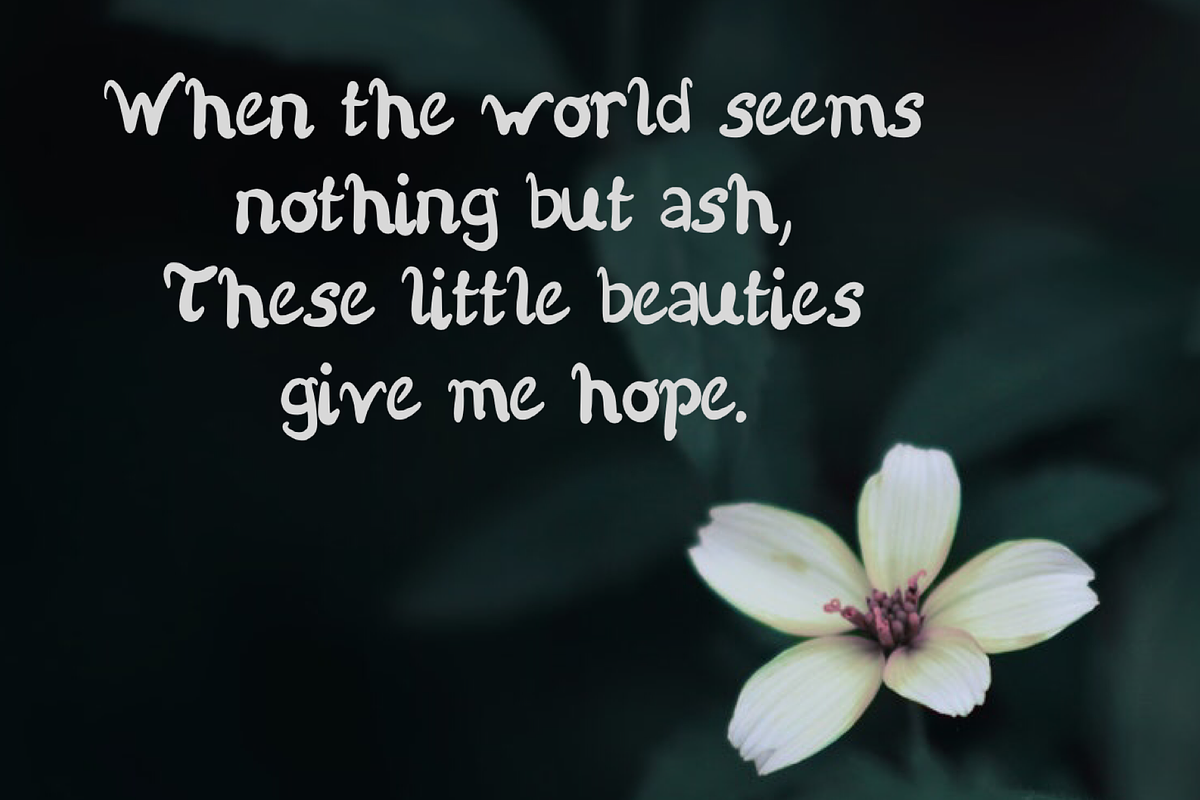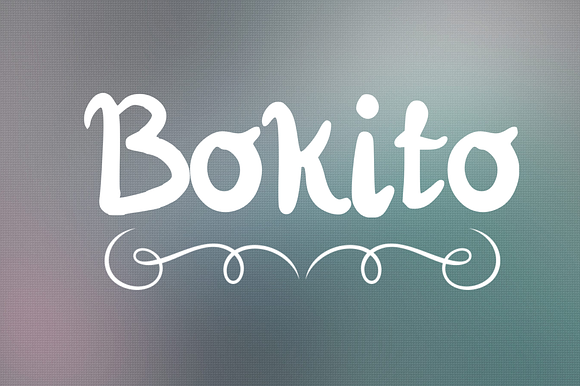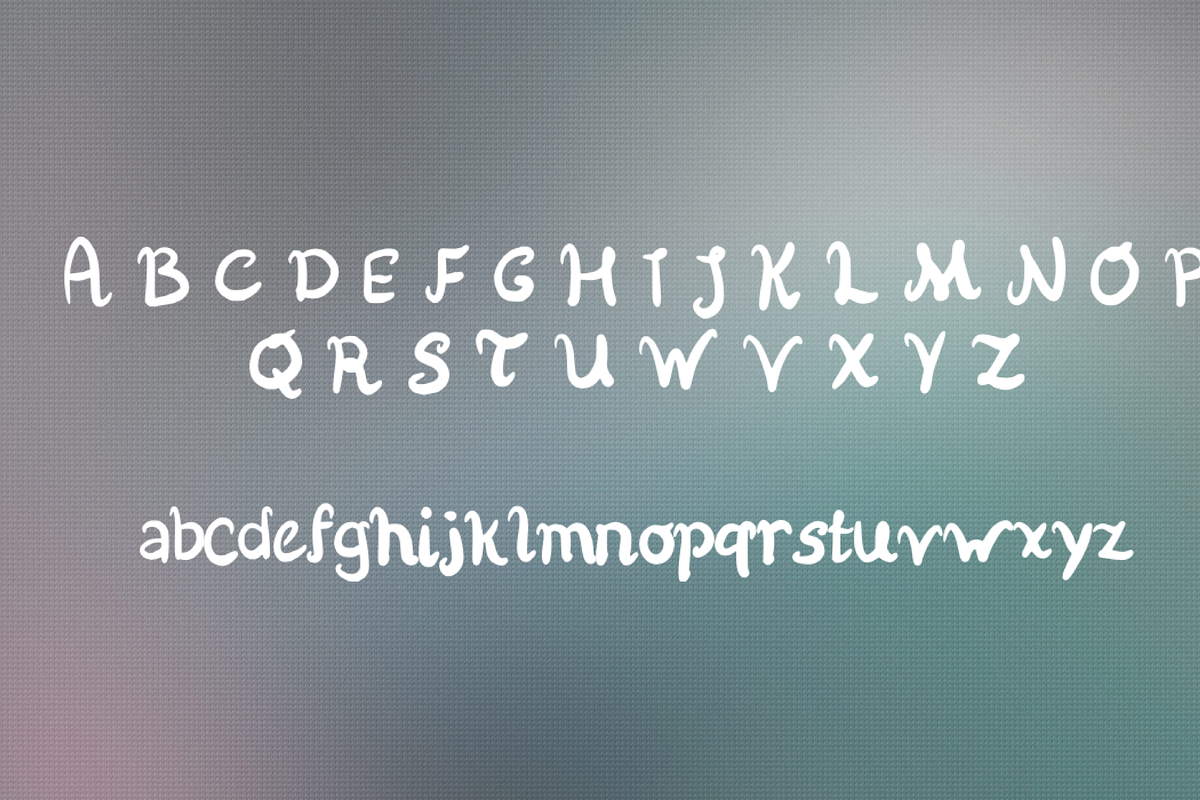
Bokito Handwritten Script Font
Bokito is a handwritten font. Ideal for logos, handwritten quotes, product packaging, header, poster, merchandise, social media and greeting cards
Why Bokito Handwritten Script Font is worth a look
Bokito Handwritten Script Font by Mila Visuals fits naturally into Branding, posters, packaging, typography.